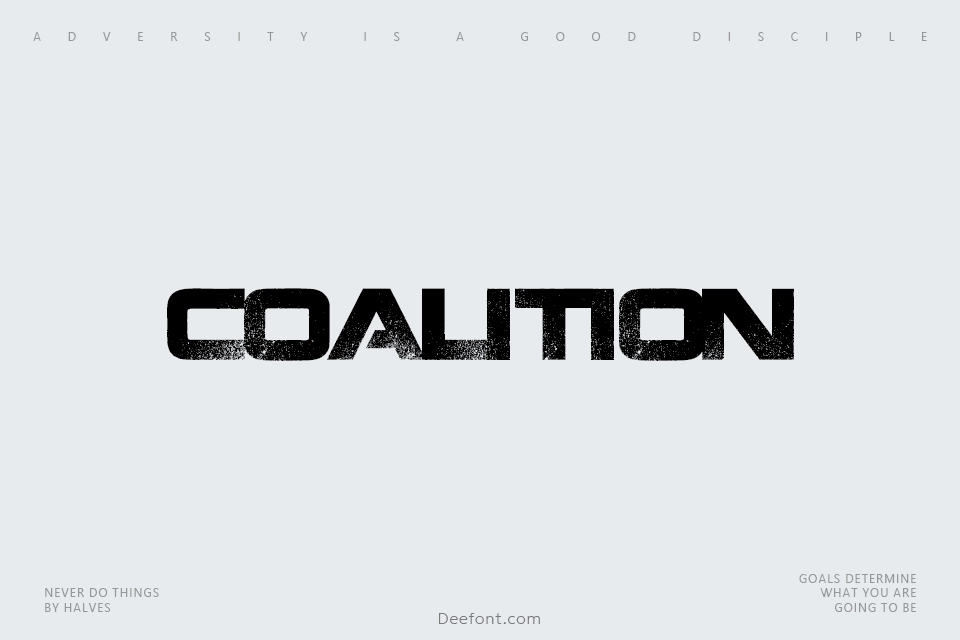
Coalition Font
Coalition is a futuristic display font designed to deliver a modern and high-impact visual impression. The font features sharp, clean lines and a technical, industrial vibe, making it ideal for sci-fi themes, technology branding, gaming titles, and bold headlines. With its robust geometric shapes, Coalition stands out in contemporary design projects seeking a strong, digital aesthetic. This font is free for personal use, but a license is required for commercial projects. Its distinctive style ensures your creative work captures attention and leaves a lasting impact.